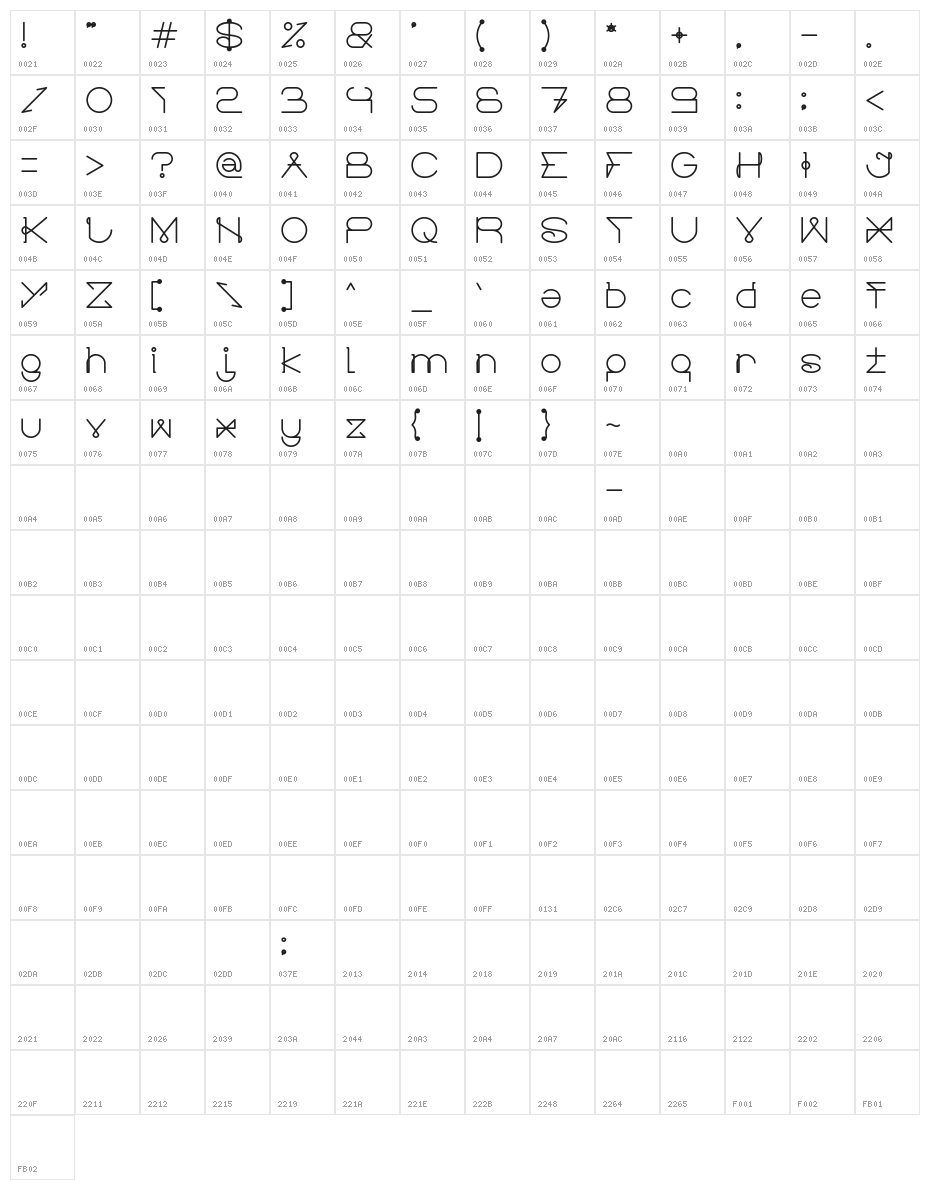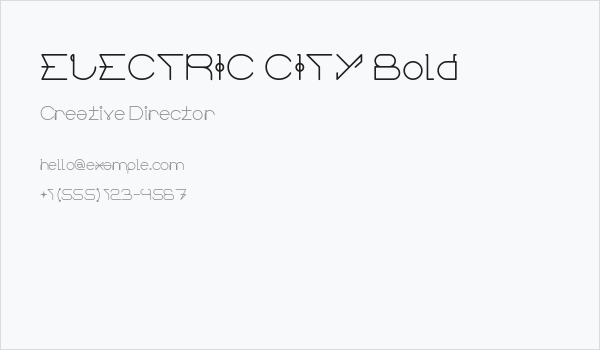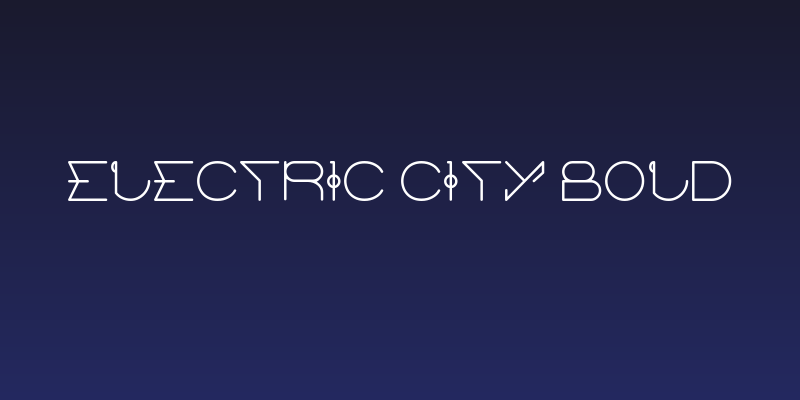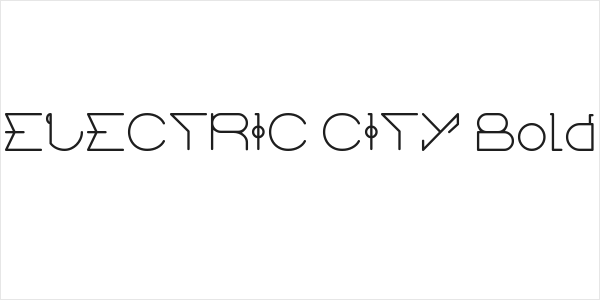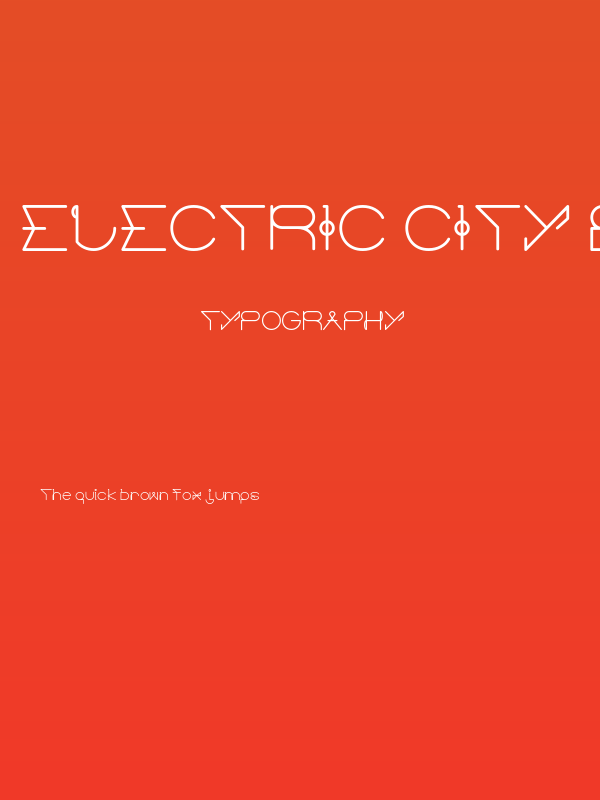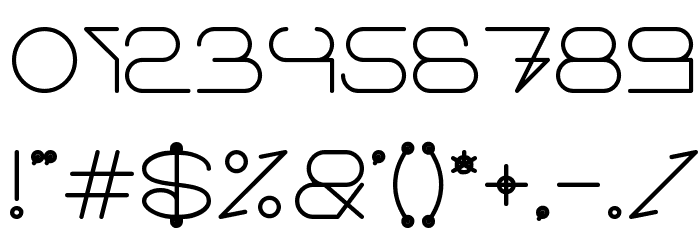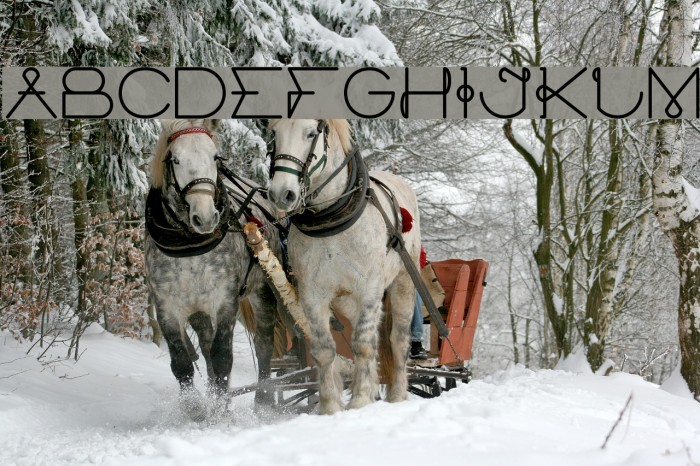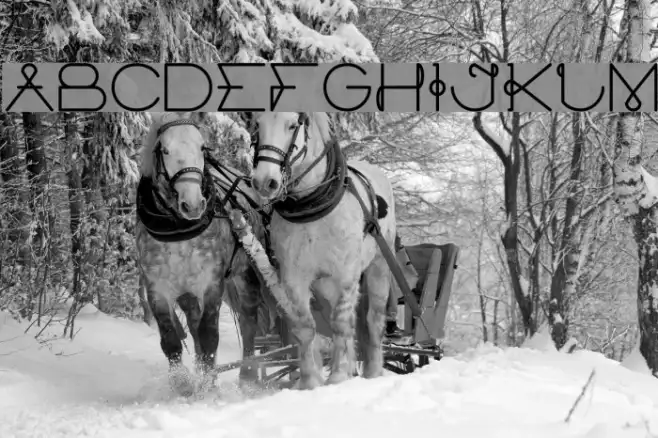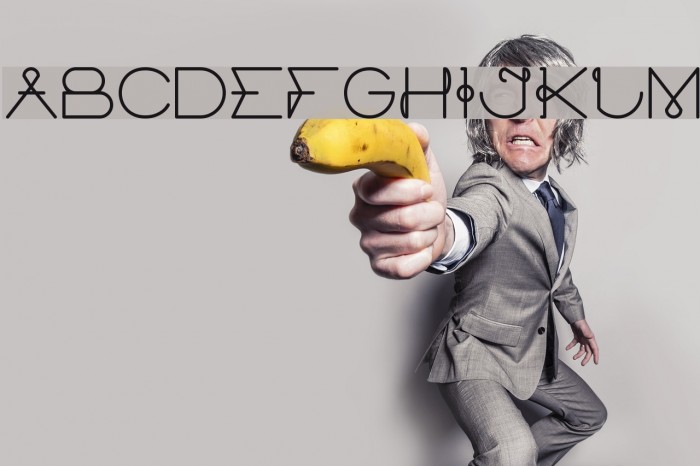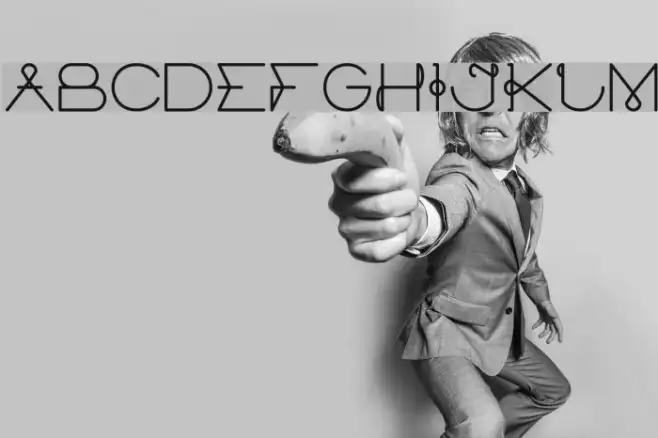
ELECTRIC CITY Bold Font
ELECTRIC CITY Bold Description
This font features a futuristic and geometric design, characterized by its unique and innovative letterforms. Each character is constructed with a combination of straight lines and curves, often incorporating unexpected angles and intersections that give it a dynamic and electric feel. The uppercase letters exhibit a bold presence with distinct shapes, while the lowercase letters maintain a consistent style that complements the uppercase. Numbers and special characters follow the same design principles, ensuring a cohesive look across all glyphs. The font's modern aesthetic makes it suitable for projects that require a cutting-edge and technological vibe.
| Proposed Projects | Ideal for tech branding, sci-fi posters, video game titles, and digital interfaces. |